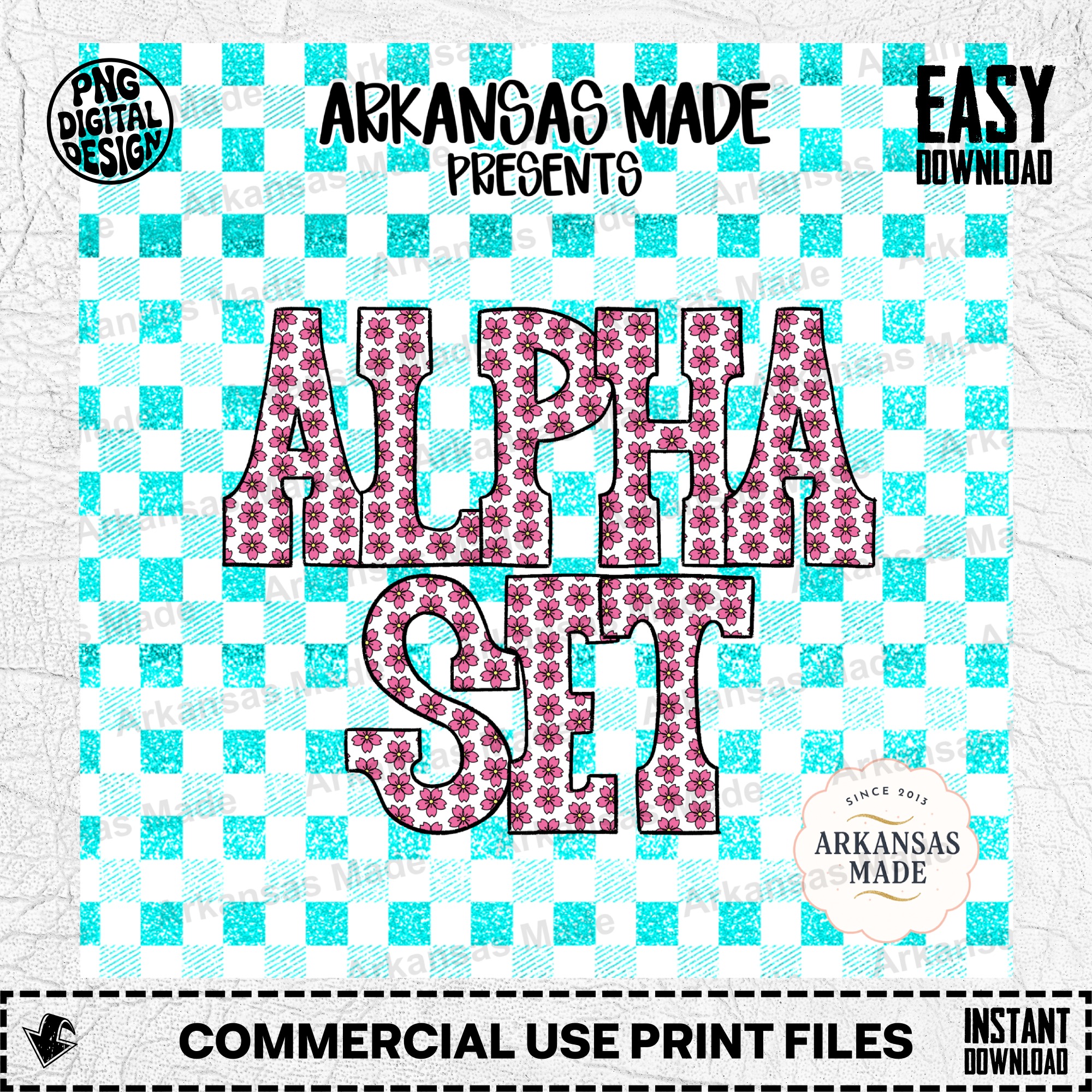
Cherry Blossom Floral Alphabet PNG Set, Pink Flower Letters Font, Cute Spring Blossom A-Z Digital Download, Crafter’s Alpha Pack
Elevate your crafts with this beautiful Cherry Blossom Floral Alphabet PNG Set. Get cute pink flower letters, perfect for spring-themed digital designs! This versatile alpha pack features a full A-Z of adorable pink blossoms, ideal for crafters, DIY enthusiasts, and small business owners. Create stunning personalized gifts, custom apparel, invitations, and nursery decor. Perfect for spring projects, baby shower themes, or adding a touch of sweet charm to any creation.